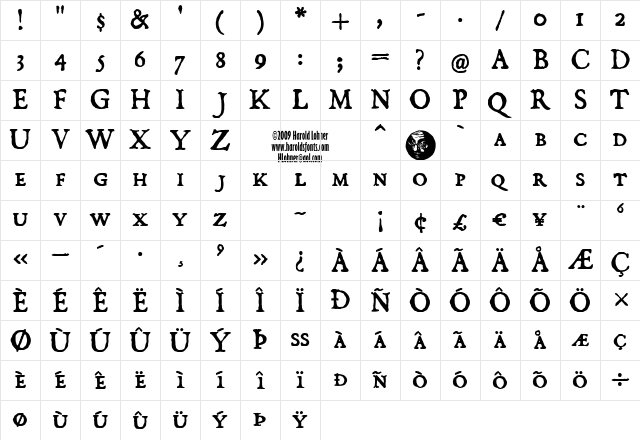
Dominican Small Caps Regular
Design Context for Dominican Small Caps
Dominican Small Caps is a composed and adaptable typeface that performs quietly and consistently across a wide range of design contexts.